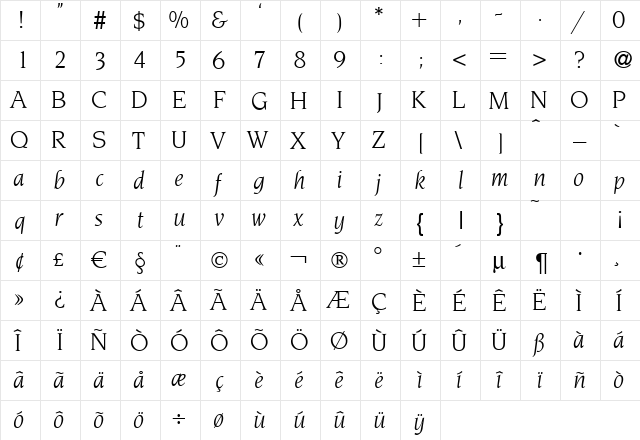
Novelty Italic
Design Context for Novelty Typeface
Novelty is a composed and adaptable typeface that performs quietly and consistently across a wide range of design contexts. Its italic angle brings a sense of urgency and motion to the letterforms.
Pro Tip: Use Novelty for emphasis, pull quotes, and subheadings where its slanted energy can add rhythm to the layout.